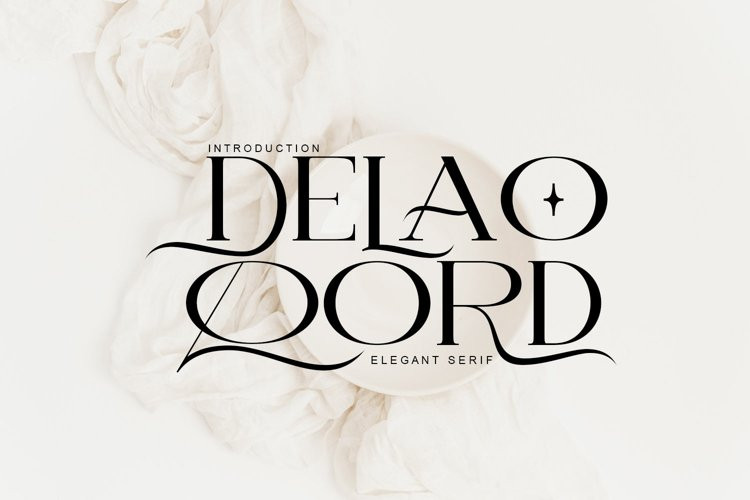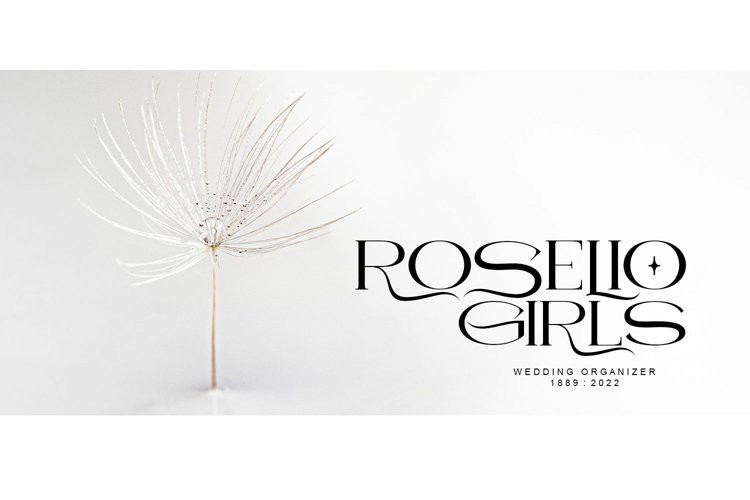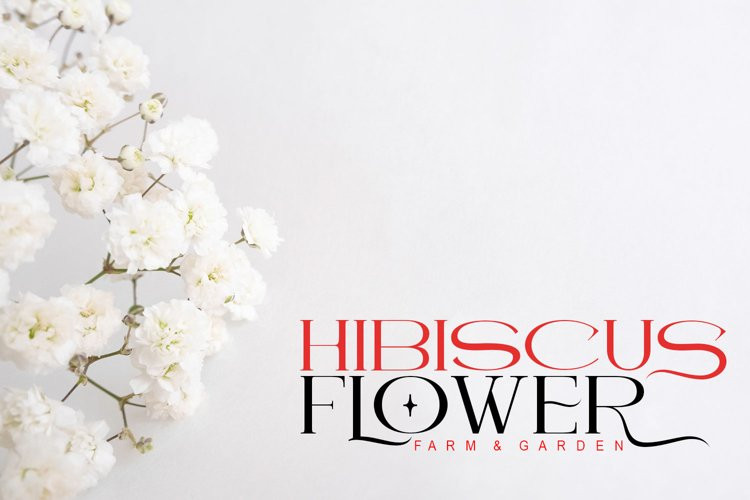
Delao Qord Font
Delao Qord FontDelao Qord is a modern elegant serif font, this font looks very simple but has a luxurious impression on it, very suitable for casual or elegant and luxurious designs, suitable for books, magazines, invitations, greeting cards, video titles, and many more. you can use, and supported by pua encode